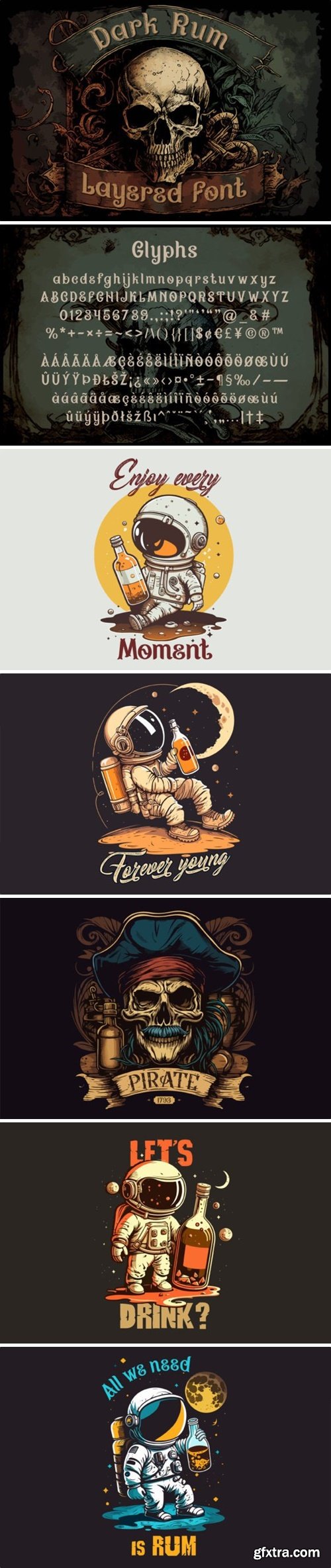
Dark Rum Font
Introducing “Dark Rum”, a vintage horror display font that will transport you to the eerie world of pirates and supernatural creatures. This font boasts a distressed texture with a rum-soaked twist, making it perfect for spooky designs that require a touch of old-world charm. Get ready to set sail into the unknown with “Dark Rum”.